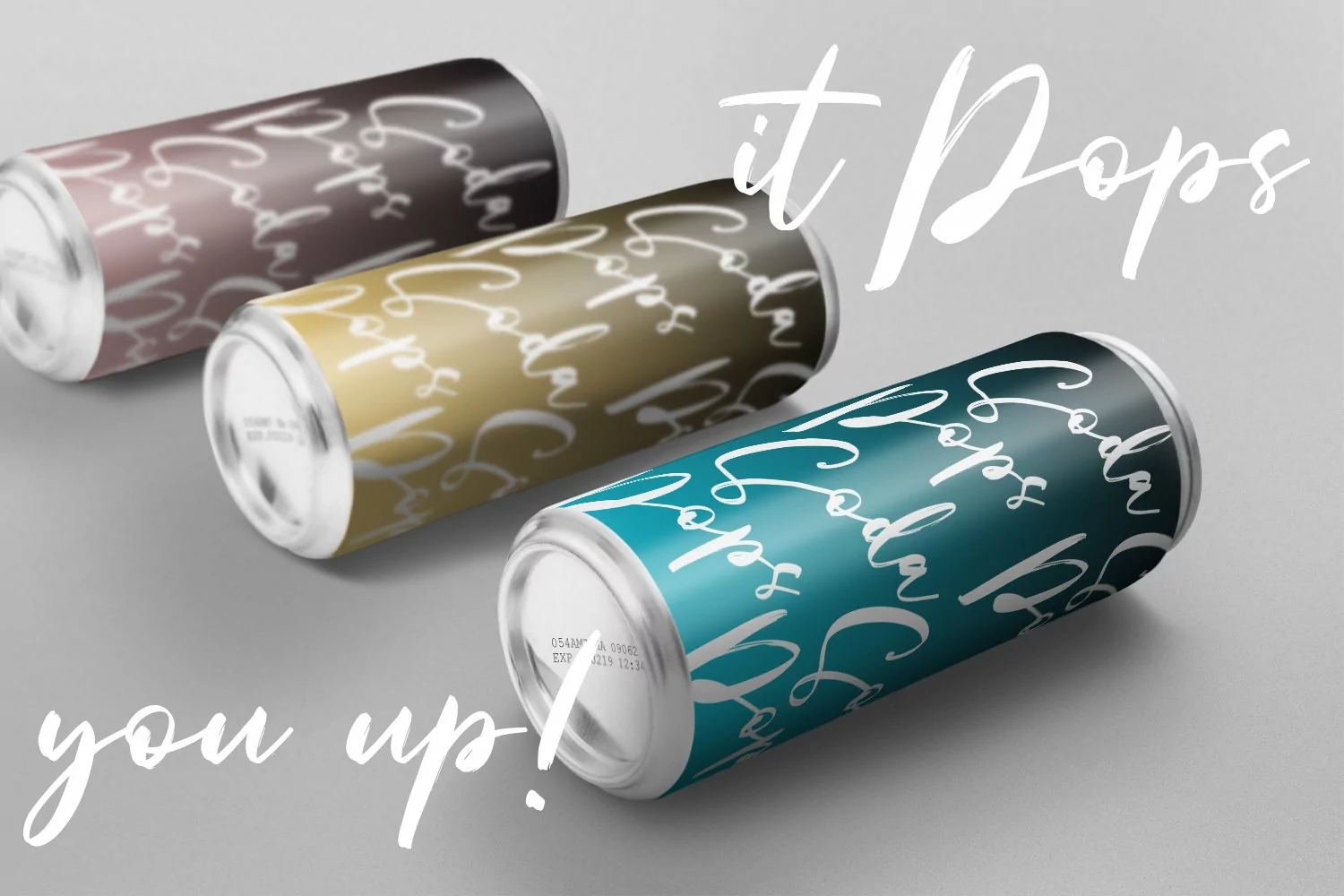
Mistychain Brush Script Font
Mistychain is a Brush script font. With contrast stroke and fun character. It has Opentype features of ligatures, To give you an extra creative work. Mistychain brush script font support multilingual more than 100+ language. This font is good for logo design, Social media, Movie Titles, Books Titles, a short text even a long text letter and good for your secondary text font with sans or serif. Make a stunning work with Mistychain brush script font.